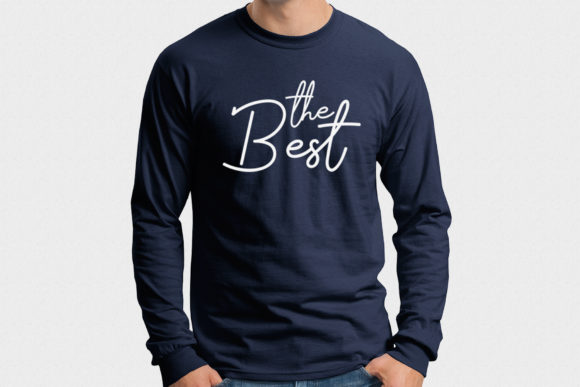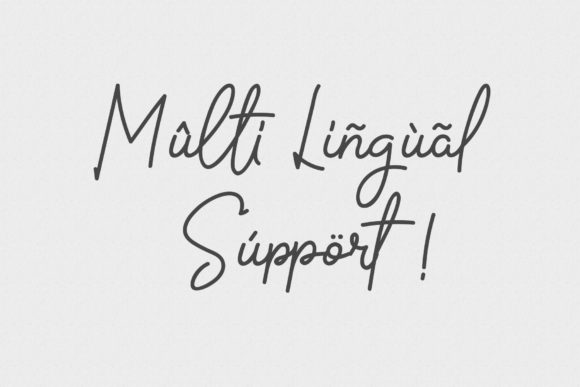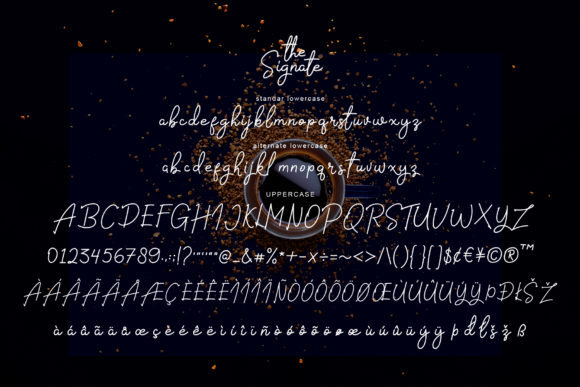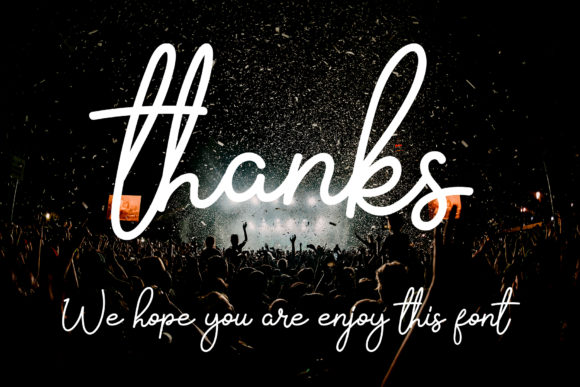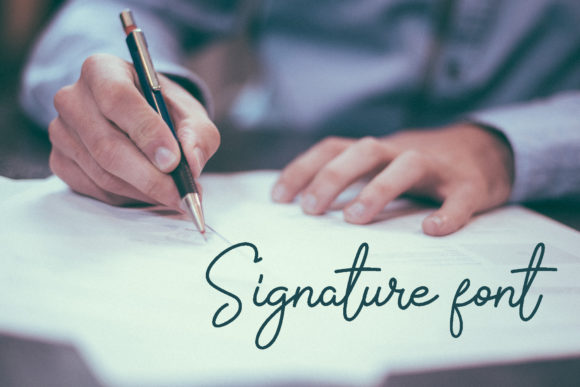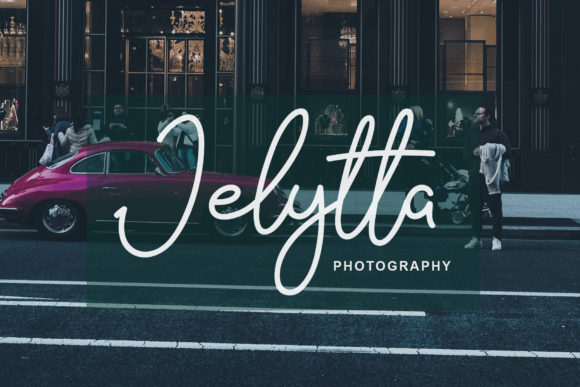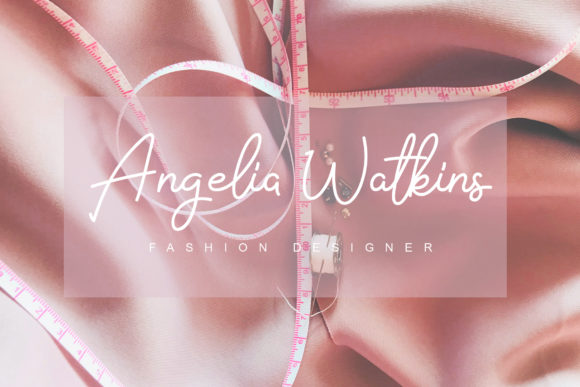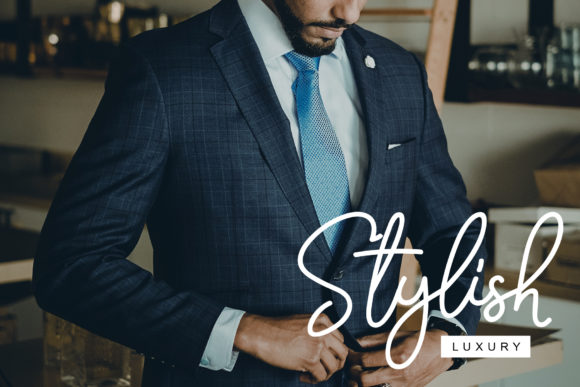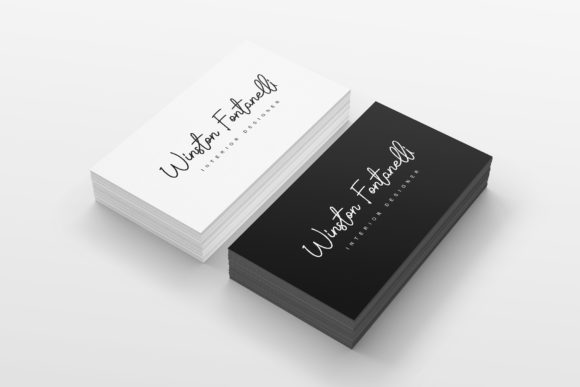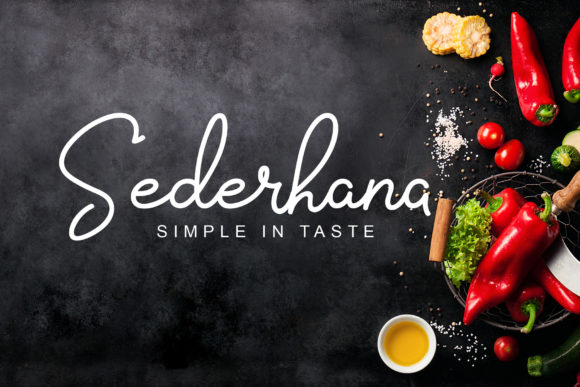
The Signate Font
About The Signate Font
The The Signate is a stylish handwritten signature font. It has a clear and luxurious style and is great for logos, printed quotes, invitations, headers, and much more!